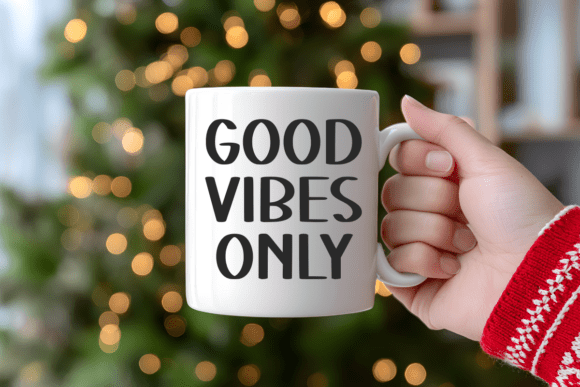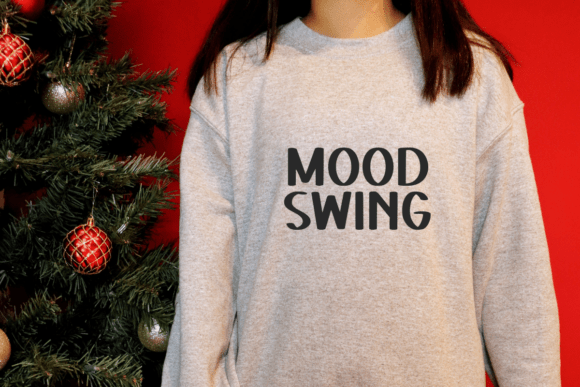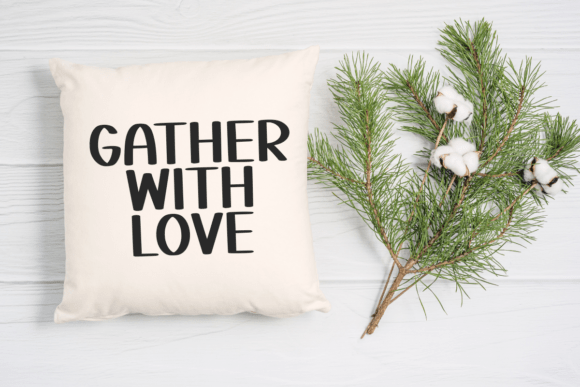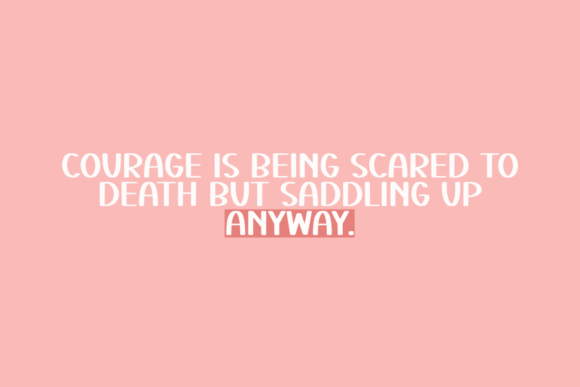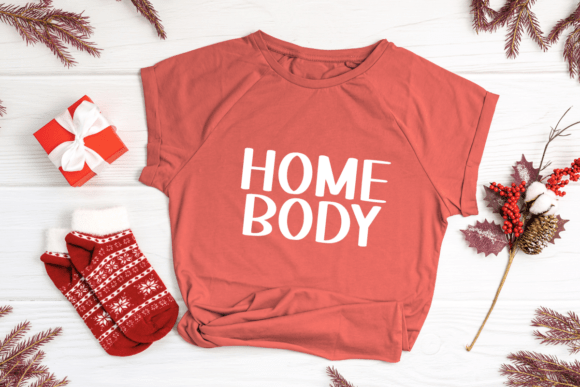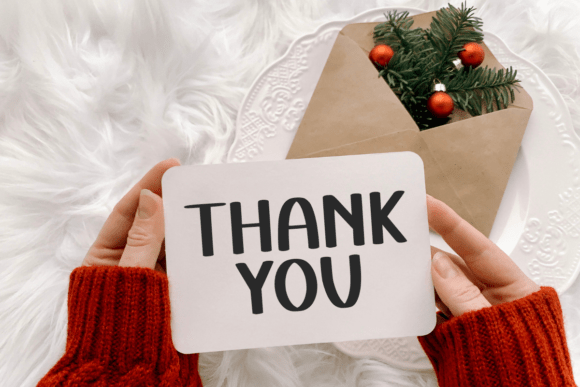
Introduction to Simple Memories Font
Simple Memories is a cute handwriting font designed with a soft, friendly, and natural look.
This font brings a warm handcrafted feeling that works beautifully for craft projects, planners, stickers, kids’ worksheets, classroom printables, and DIY designs Its simple strokes and smooth curves make it easy to cut using Cricut and Silhouette, and perfect for crafting moms who love adorable handwritten styles.
Key Features of Simple Memories Font